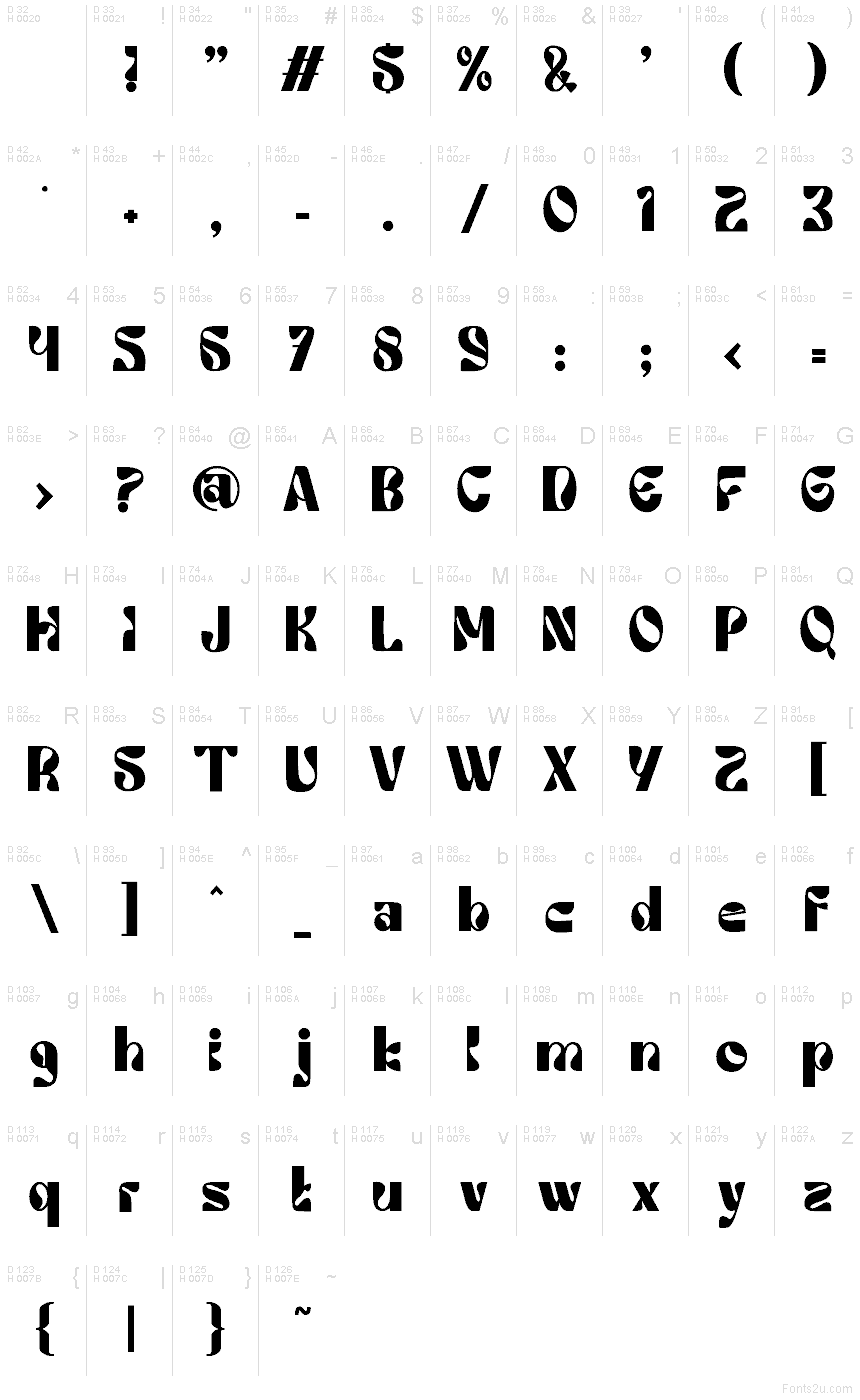
Floras Display Two
Floras Display Two font, designed by PutraCetol Studio, is a display font with smooth curves and abstract shapes. Artists get to enjoy the subtle geometric elements that contribute to the groovy appearance of this artistic font. The retro influence is clearly seen, allowing your projects to embrace a more nostalgic path.